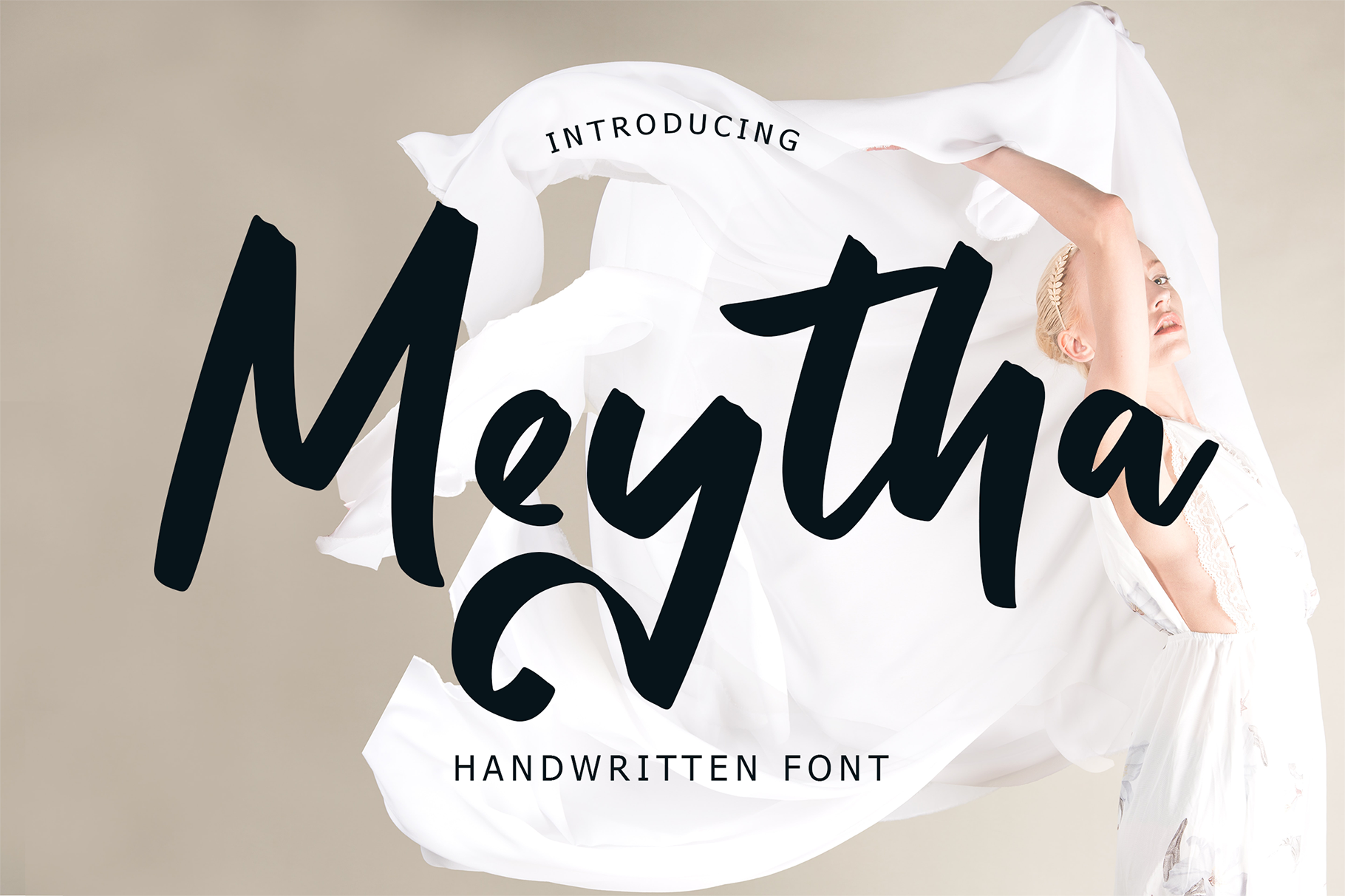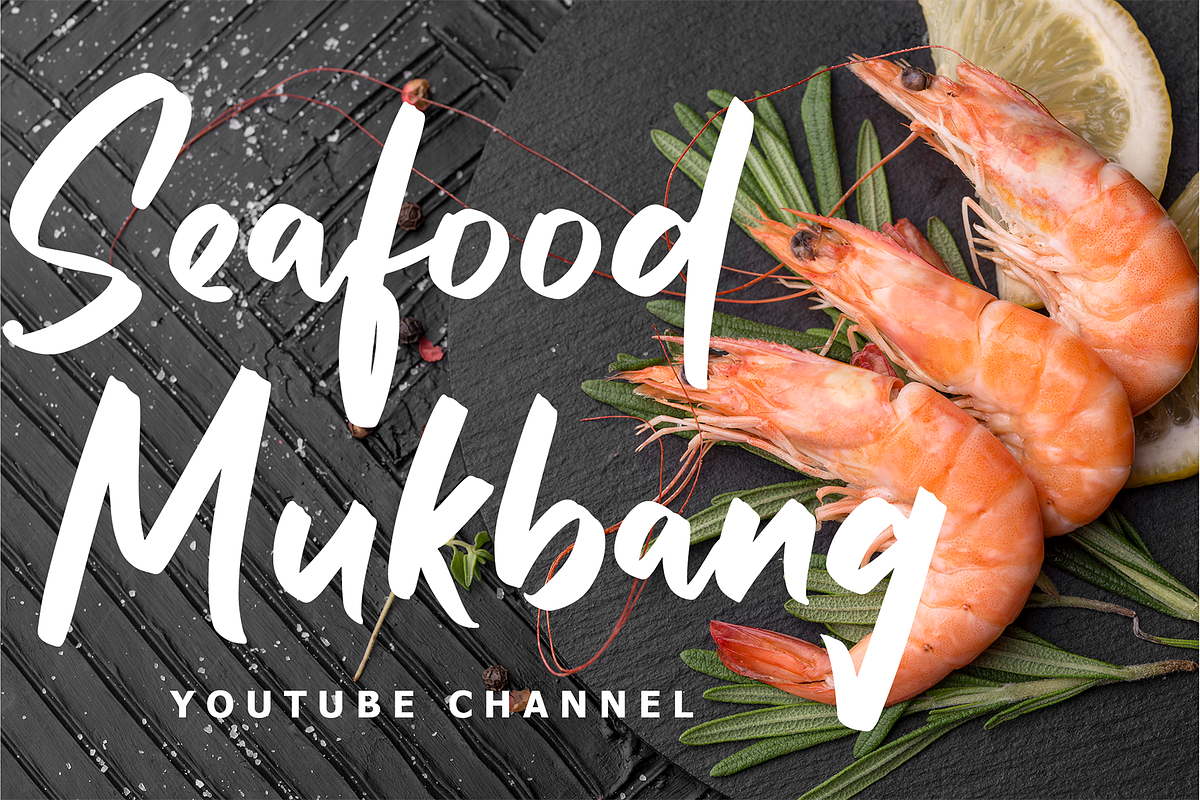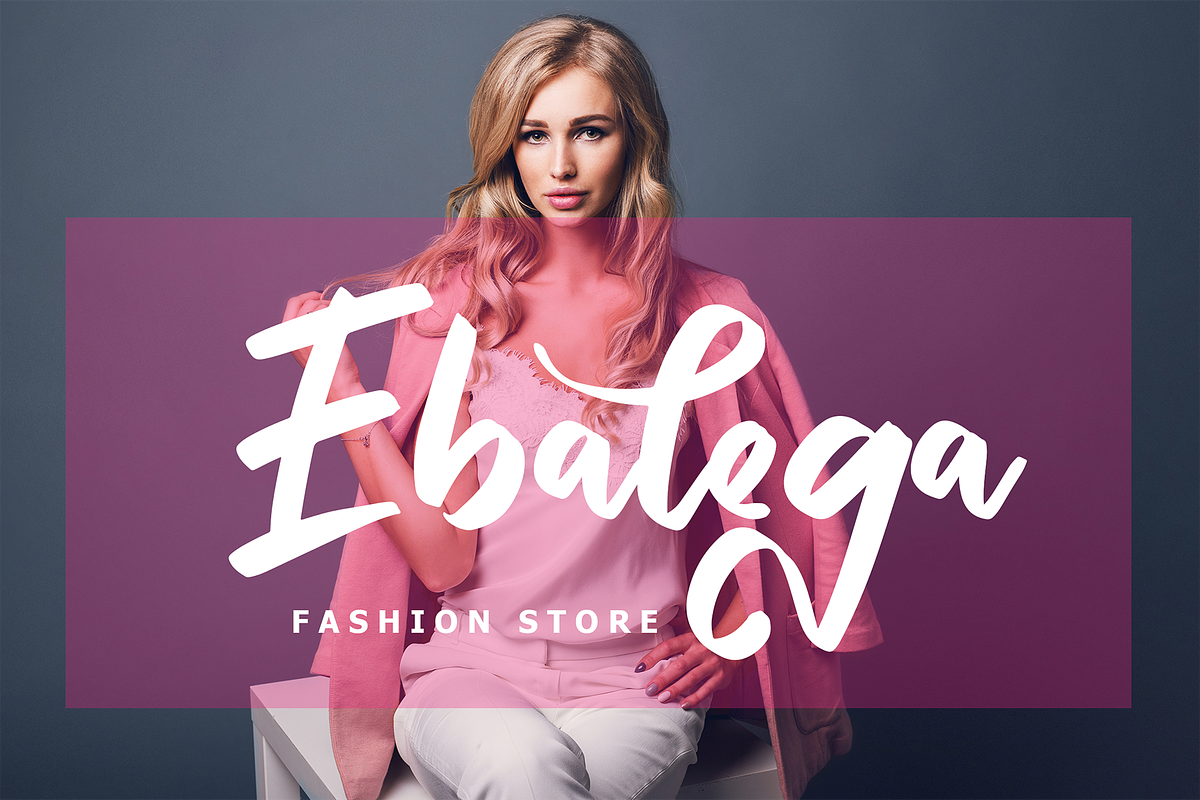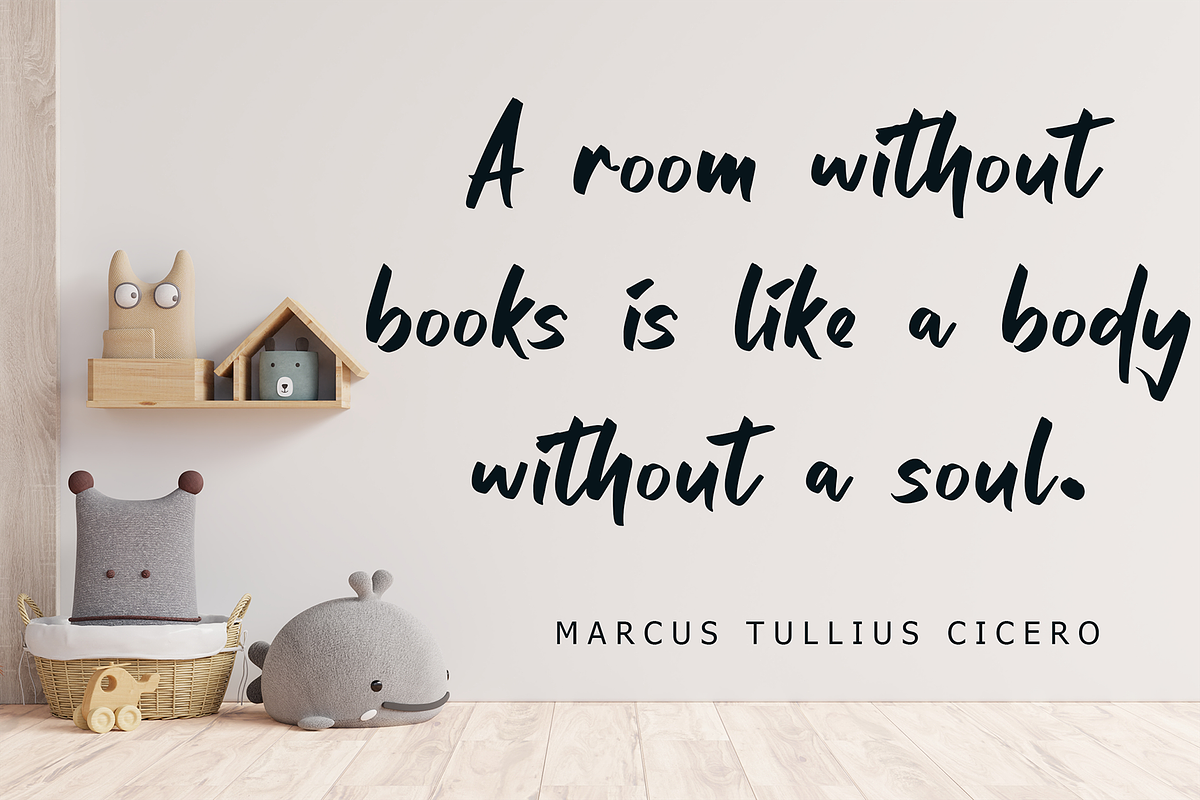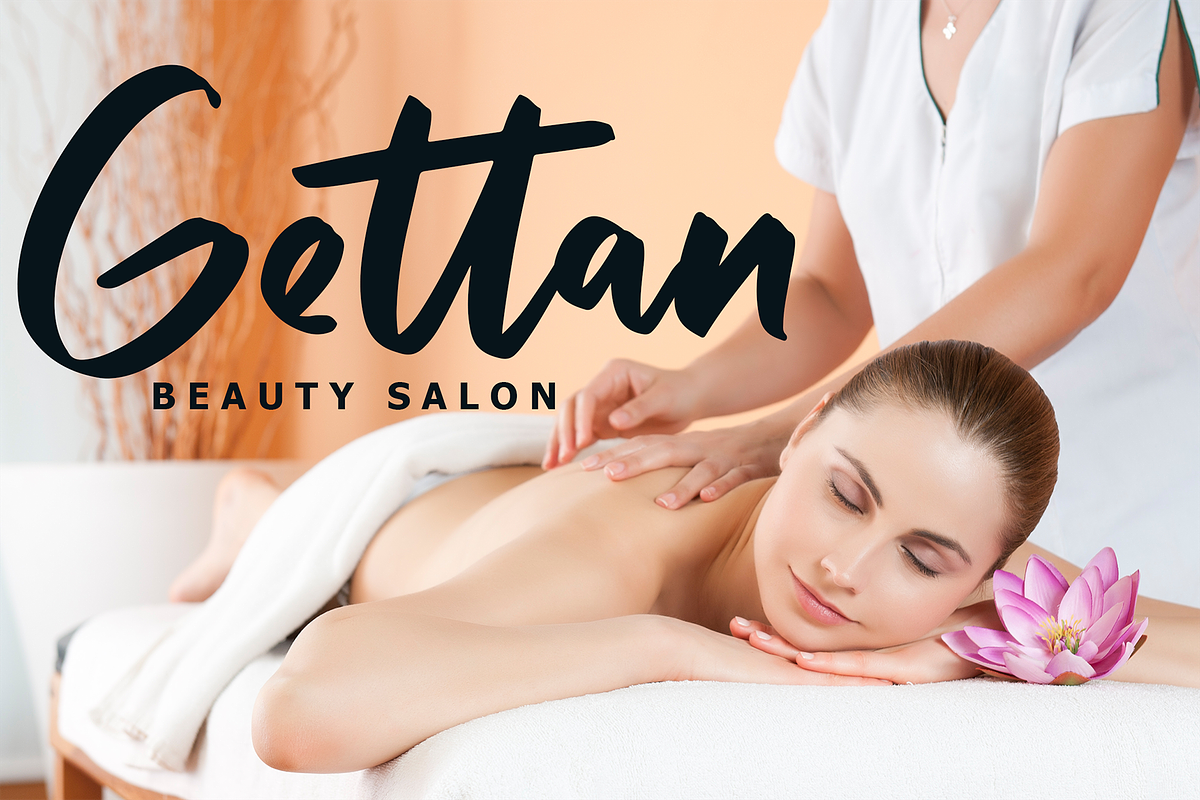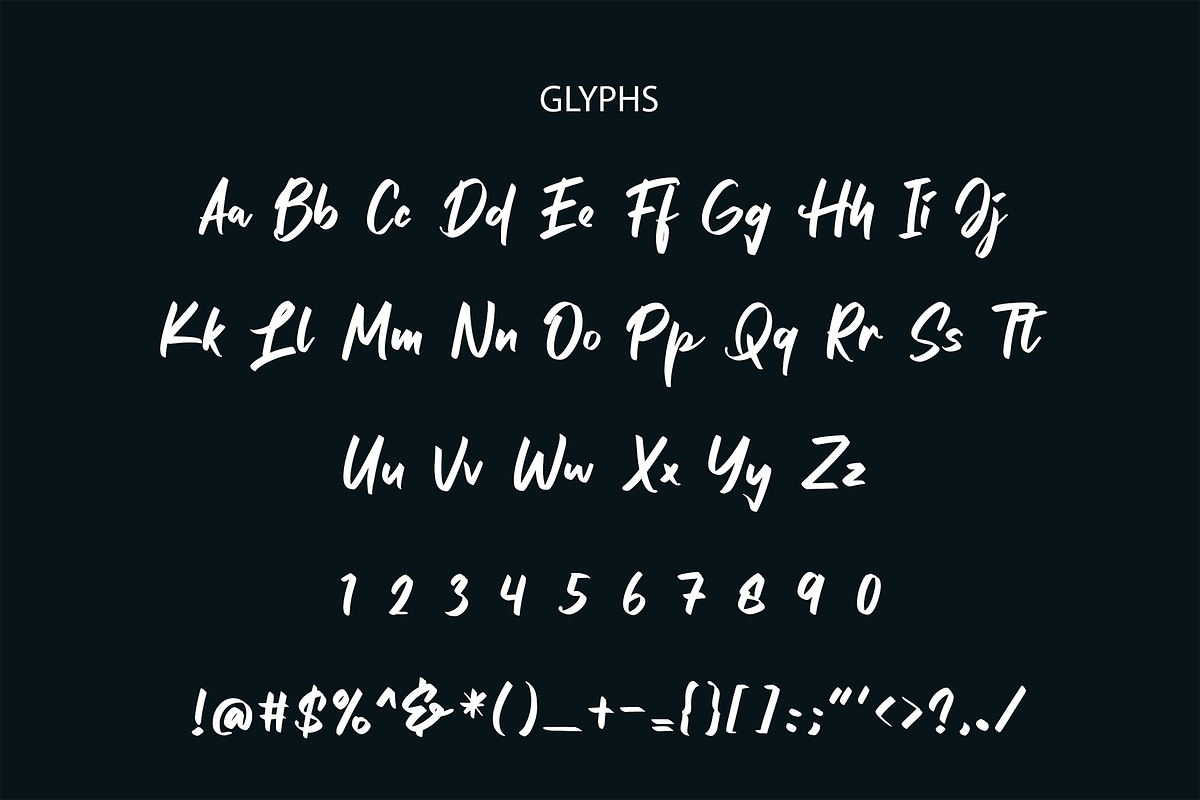
Metyha Handwritten Font
Meytha is an exciting handwritten font can make your text appear elegant, luxurious, and modern!
This font perfect for branding projects, logo, book cover design, tshirt designs, social media posts, advertisements, product packaging, product designs, label, watermark, invitation, stationery and any projects